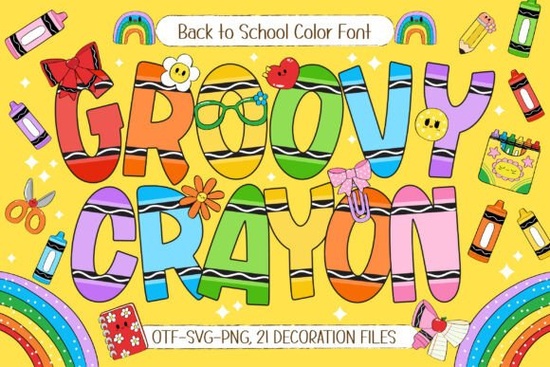
Designers, crafters, and small business owners looking for a fun and expressive way to add personality to their projects will find the Groovy Crayon Font to be a valuable addition to their creative toolkit. This hand-drawn color font is perfect for Back-to-School themes and kid-friendly designs, offering a playful and vibrant look that stands out. With its bold letters and adorable crayon-inspired doodles, it brings a sense of energy and creativity to any project.
The Groovy Crayon Font includes 7 different color variations, each adding a unique splash of color to your work. These options make it easy to match your design’s mood or theme, whether you're creating educational materials, classroom decorations, or promotional banners. The font also comes with 21 cute school-themed doodle cliparts, which can be used to enhance visual appeal and make your designs more engaging for children and educators alike.
Whether you're designing T-shirts, stickers, or scrapbook pages, this font offers a fresh and artistic approach that adds a cheerful touch to your work. Its versatility makes it suitable for a wide range of applications, from teacher resources to DIY crafts. The playful style of the Groovy Crayon Font helps inspire creativity in every classroom and beyond.
What Makes Groovy Crayon Stand Out?
One of the key features of the Groovy Crayon Font is its hand-drawn aesthetic, which gives it a unique, personalized feel. Unlike many digital fonts, this one feels more like a real crayon drawing, making it ideal for projects that aim to evoke nostalgia or a handmade vibe. The font’s doodle details are not just decorative they add character and visual interest to your designs, helping them stand out in a crowded market.
Another advantage is the variety of color options available. With 7 vibrant variations, you can easily switch between different looks depending on the project. This flexibility allows you to keep your designs fresh and exciting without needing to use multiple fonts. The color choices also make it easier to create cohesive themes, especially when working on school-related materials or holiday promotions.
The inclusion of 21 school-themed doodle cliparts further enhances the font’s usefulness. These images can be used alongside the text to create eye-catching visuals for classroom activities, invitations, or promotional materials. Whether you're a teacher looking for creative ways to engage students or a designer seeking inspiration, these elements provide a helpful starting point for your next project.
Who Can Benefit From Using This Font?
The Groovy Crayon Font is particularly useful for educators and homeschoolers who want to make their materials more visually appealing. It can be used to create posters, worksheets, or bulletin boards that capture students’ attention and encourage learning. The font’s playful style also makes it a great choice for print-on-demand sellers looking to offer unique, kid-friendly designs.
Crafters and hobbyists will also find value in this font. It can be used for scrapbooking, card making, or customizing items like mugs and t-shirts. Its bright colors and doodle details add a personal touch that makes each creation feel special. For small businesses, the font offers a way to differentiate their products and connect with customers who appreciate creativity and fun.
How to Get Started With Groovy Crayon
When working with the font, consider experimenting with different color combinations and layouts to see what works best for your project. Don’t be afraid to mix and match the doodle cliparts with your text to create a more dynamic look. The font’s flexibility allows for a lot of creative freedom, so take the time to explore its possibilities.
For those new to using color fonts, the Groovy Crayon Font is a great starting point. Its simple and intuitive design makes it easy to use, even if you don’t have advanced design skills. With a little practice, you’ll be able to create professional-looking designs that reflect your unique style.
Before finalizing your design, always test it in different formats and sizes to ensure it looks good in all contexts. Whether you’re printing it on paper or sharing it online, the font should maintain its clarity and vibrancy. This attention to detail will help your work stand out and leave a lasting impression on your audience.